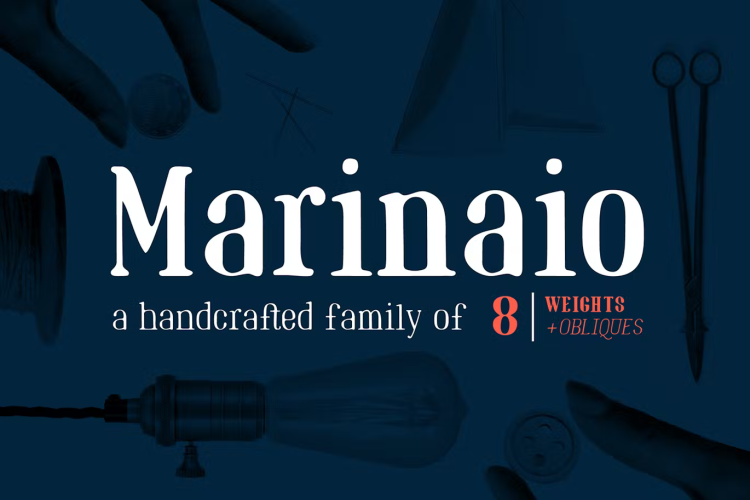
Marinaio Family Font
COMPLETE MARINAIO FAMILY (8 WEIGHTS + OBLIQUES)
This is the new Marinaio Font Family a hand crafted typeface designed by Valerio Dell’Edera. This was inspired by rubber-stamping and carving. This font sincerely says “I’m perfect for business cards, custom stamps, coffeetable books, letterhead, invitations and many more, anywhere you wish.”
There are many alternate ligatures available within the font including œ, æ, gg, fi, tt, ff, ft, li, fh, fj, ffl, fl and wi. The character is basically narrow, gently curvy, low contrast with softened edges to replicate the vintage printing effect or rubber-stamp.
Marinaio Family Font is a Serif Fonts font that brings a professional and versatile look to your projects. COMPLETE MARINAIO FAMILY (8 WEIGHTS + OBLIQUES) This is the new Marinaio Font Family a hand crafted typeface designed by Valerio Dell’Edera .